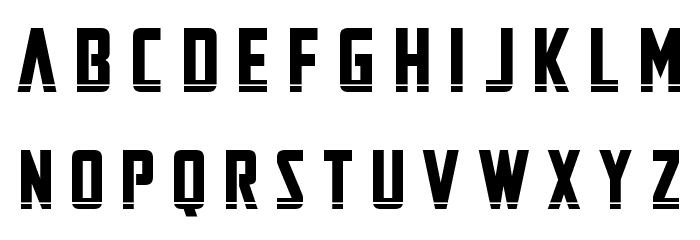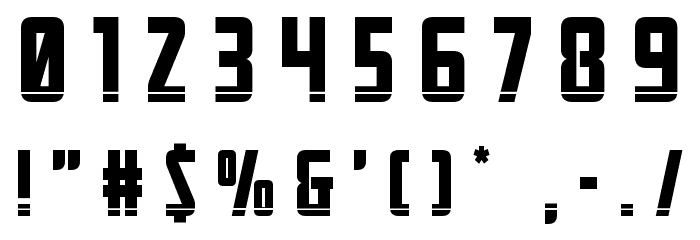
Mandalore Laser Title Font
This font features a bold, futuristic design with a distinct sci-fi aesthetic. The characters are blocky and geometric, with sharp angles and clean lines that give it a modern, tech-inspired look. The uppercase and lowercase letters maintain a consistent style, with unique cutouts and negative spaces that add visual interest. The numbers and special characters are designed to match the overall theme, making this font ideal for projects that require a strong, impactful presence. The inclusion of silhouettes within some letters adds an extra layer of creativity and thematic depth.
A bold, futuristic font with geometric shapes and sci-fi elements.
- Proposed Projects: Ideal for movie posters, video game titles, sci-fi book covers, and branding for tech companies.
- Overall Style: Futuristic, Sci-Fi
- Use Case: Headlines, Logos, Titles